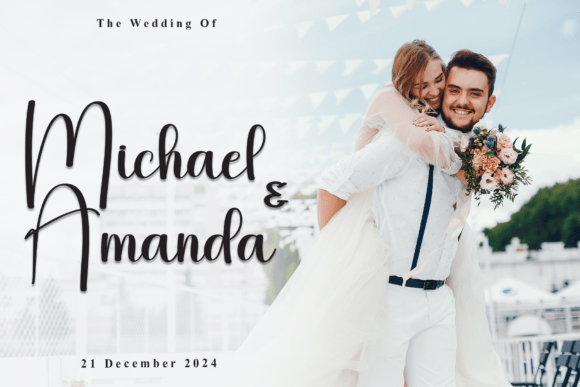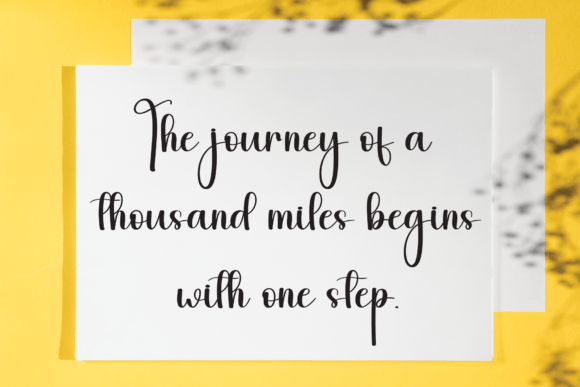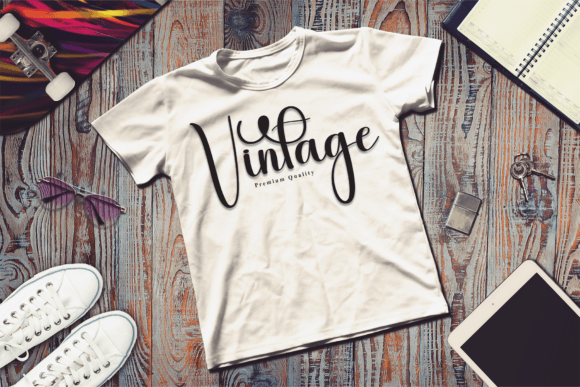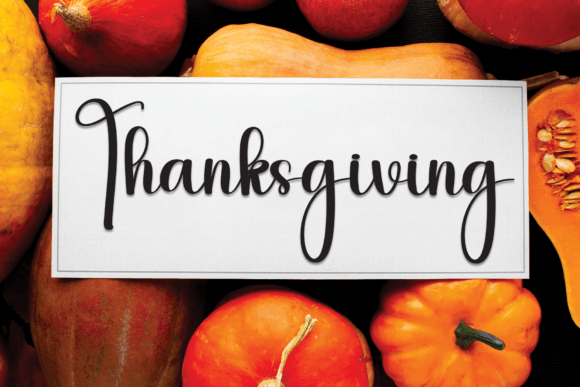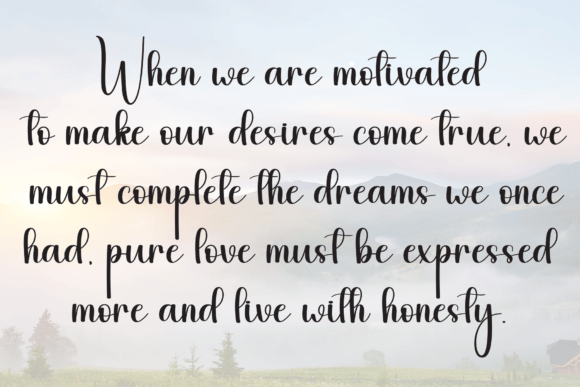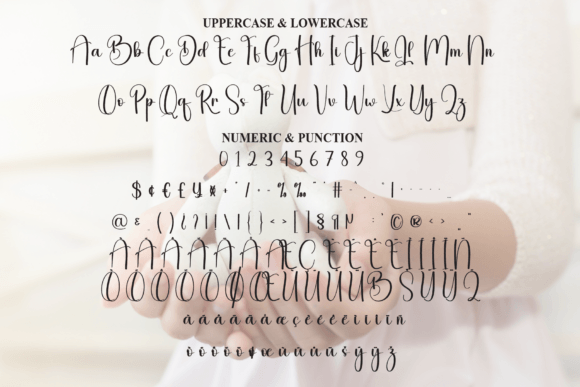
Babydoll Font: Elevate Your Designs with Elegance and Charm
In the world of typography, few fonts manage to capture the essence of elegance and charm as effortlessly as the Babydoll Font. This stylish handwritten script font has become a favorite among designers and crafters alike, and for good reason. With its fluid, graceful strokes, Babydoll Font brings a personal and sophisticated touch to any design, making it perfect for branding, invitations, stationery, and more.
The Characteristics of Babydoll Font
Babydoll Font is distinguished by its smooth curves and natural flow, which create a timeless, refined look that can elevate any design. The fluid strokes of this font give it a sense of movement and elegance, making it stand out in a crowded field of typography. Whether you’re working on a logo, an invitation, or a piece of stationery, Babydoll Font adds a level of sophistication and charm that’s hard to match.
Perfect for Branding
Branding is all about creating a memorable and lasting impression, and the right font can play a crucial role in achieving this goal. Babydoll Font, with its elegant and charming aesthetic, is an excellent choice for brands looking to convey a sense of luxury, sophistication, and refinement. From high-end fashion labels to boutique businesses, Babydoll Font can help you create a brand identity that stands out from the competition.
Ideal for Invitations and Stationery
Invitations and stationery are areas where typography can truly shine, and Babydoll Font is a fantastic choice for adding a touch of elegance and whimsy. Whether you’re designing wedding invitations, birthday cards, or personalized stationery, Babydoll Font brings a level of charm and sophistication that’s sure to impress. Its smooth curves and fluid strokes create a beautiful, refined look that’s perfect for special occasions.
Why Designers and Crafters Love Babydoll Font
Designers and crafters appreciate fonts that are versatile, easy to work with, and offer a unique aesthetic. Babydoll Font checks all these boxes and more. Its elegant and charming design makes it a joy to use, and its fluid strokes and smooth curves ensure that it looks great in a variety of contexts. Whether you’re creating digital content or working on a craft project, Babydoll Font is a great choice.
Tips for Using Babydoll Font
To get the most out of Babydoll Font, here are a few tips to keep in mind:
- Pair it with contrasting fonts: Babydoll Font works beautifully with simpler, sans-serif fonts. Try pairing it with a clean font like Arial or Helvetica to create visual interest.
- Experiment with colors: While Babydoll Font looks great in black or dark colors, don’t be afraid to experiment with different hues. Soft pastels, rich jewel tones, and metallic colors can all add a unique touch to your designs.
- Play with sizes: Babydoll Font is versatile and can be used in a range of sizes. Experiment with different sizes to create visual hierarchy and add emphasis to key elements.
Babydoll Font is a stylish handwritten script font that offers a unique blend of elegance and charm. With its fluid, graceful strokes and smooth curves, it’s perfect for adding a personal and sophisticated touch to any design. Whether you’re a designer, crafter, or simply someone who appreciates beautiful typography, Babydoll Font is definitely worth checking out. Its versatility, ease of use, and stunning aesthetic make it a valuable addition to any design toolkit.